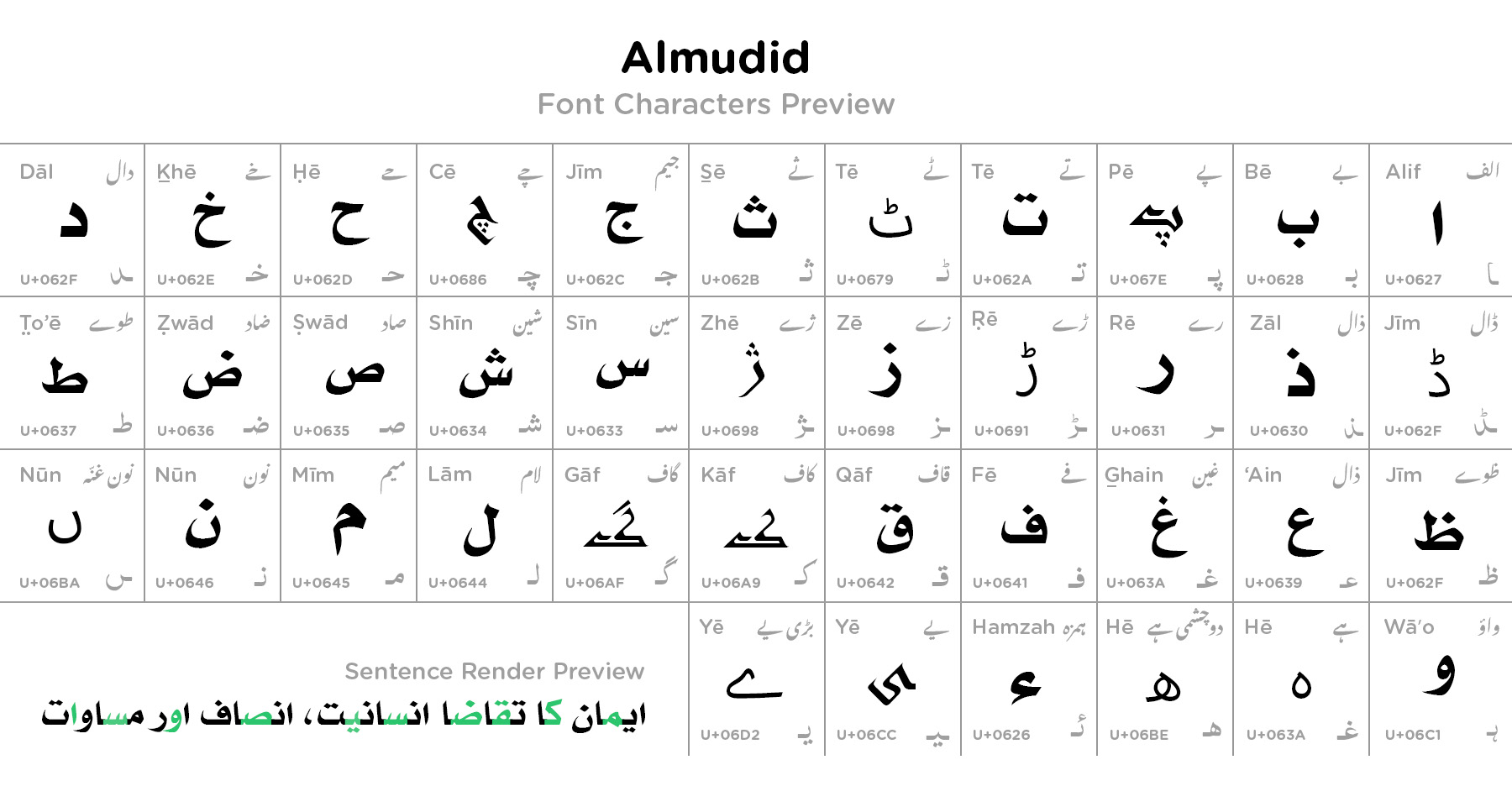
Almudid, crafted by Mohammad Alshalfan, is a wide Qalam writing Arabic font renowned for its sharp edges and refined appearance. Inspired by traditional Naskh calligraphy, it features slanted edges cut at diagonals with horizontal emphasis, capturing the essence of classic Arabic script. This calligraphic font supports an extensive list of characters and symbols, making it suitable for writing various languages across different design platforms with ease. Also, the font comes in only one weight, limiting its diversity for different applications.
It offers high legibility, even at smaller sizes, thanks to its clear letterform and strong strokes. The thickness varies at every curve and corner, resembling the flow of a calligraphic pen, while the even spacing between letters adds visual interest to the text. Compatible with Unicode blocks such as Private Use Area, Basic Latin, and Latin-1 Supplement, it finds applications in headings, titles, creative posters, flyers, logos, and branding projects. Its clear outlook and easy-to-understand appearance make it ideal for short and long texts, providing designers with a versatile and elegant Arabic font option.